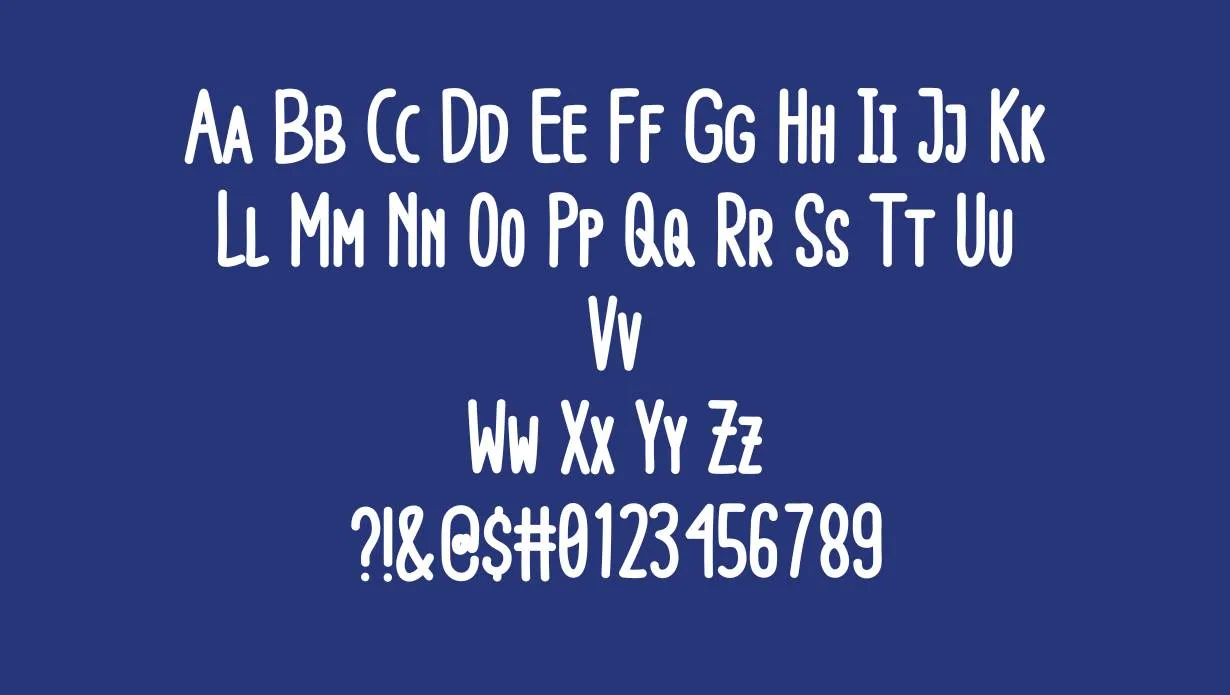
The Kid Boys Font is playful and lively, perfect for projects related to children or anything that needs a youthful touch. Its whimsical characters bring a sense of fun and joy, making it ideal for children’s books or birthday invitations.
| Name | Kid Boys Font |
| Designer | Diki Pradipta Tri Atmojo |